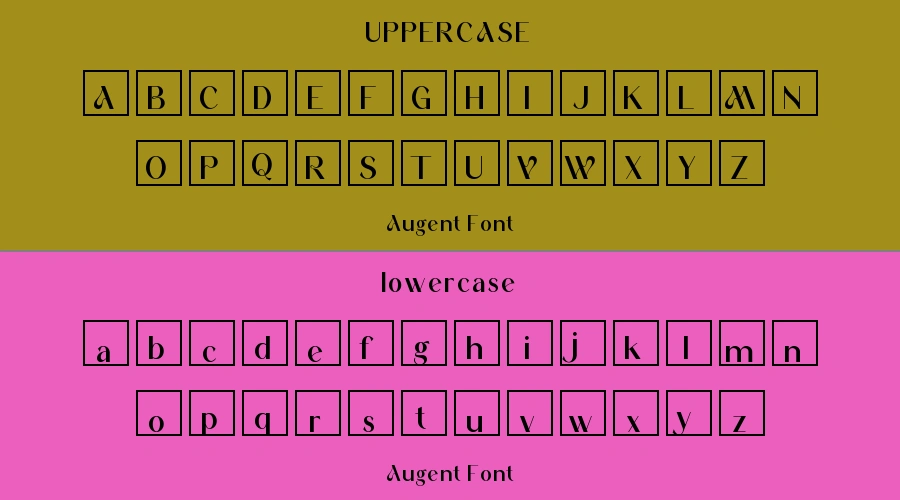
About Augent Font
Designed with precision, Augent Font merges calligraphic influence with sophistication in every character. This versatility makes it particularly effective for magazine layout, where precision and market relevance directly impact communication quality. Each letterform demonstrates meticulous craftsmanship.
Technical excellence shines through elements like confident strokes and text figures, enhancing typographic versatility. In advertisements settings, Augent Font proves its worth through superior archive stability. The thoughtful execution of contrast level and creative expression ensures professional results.